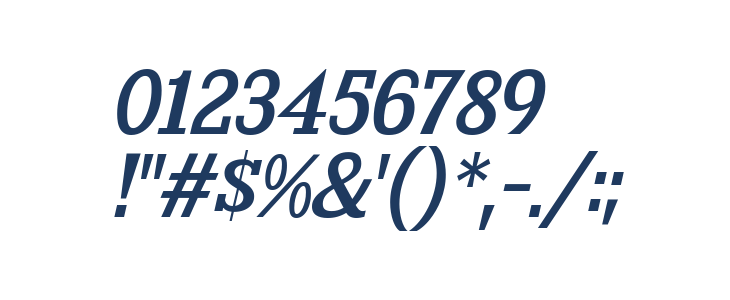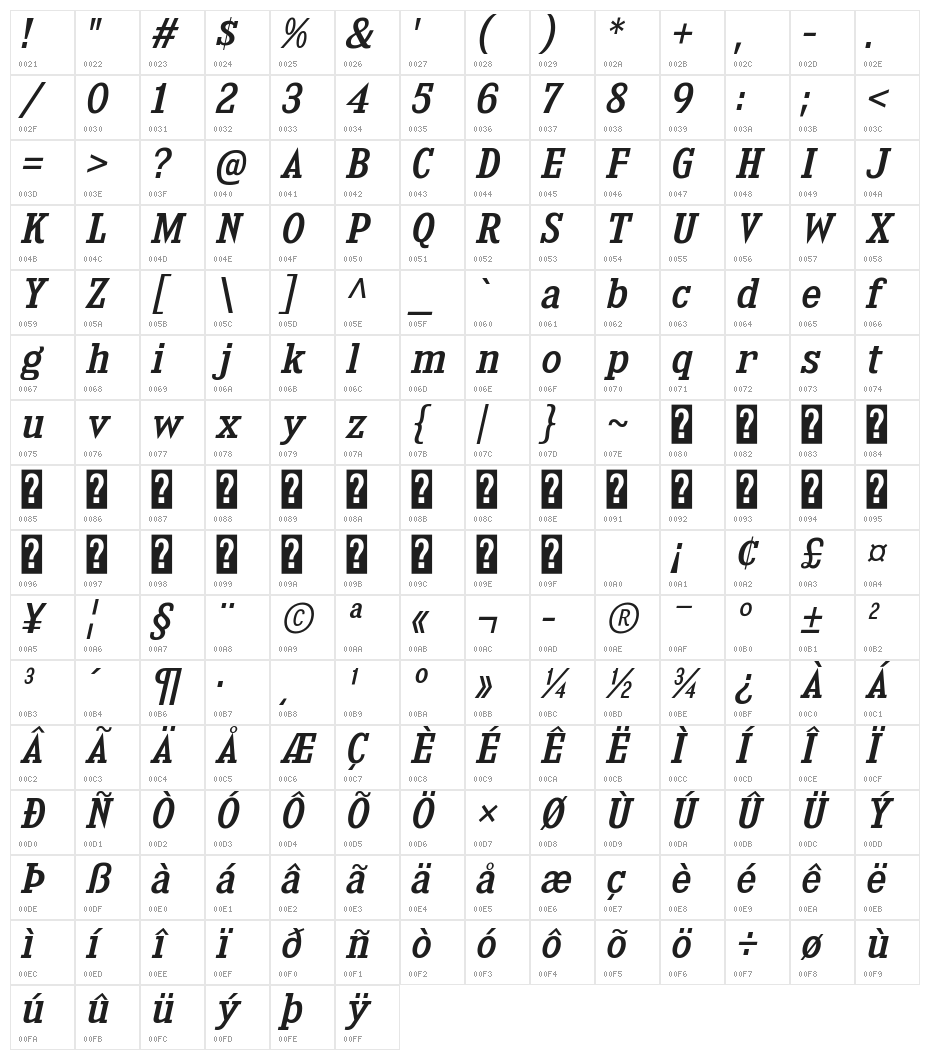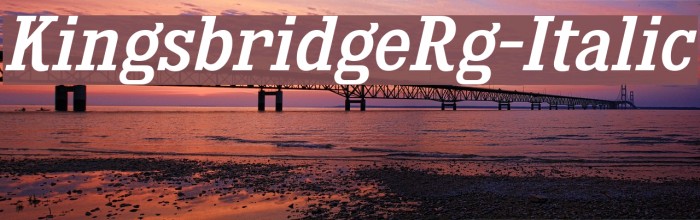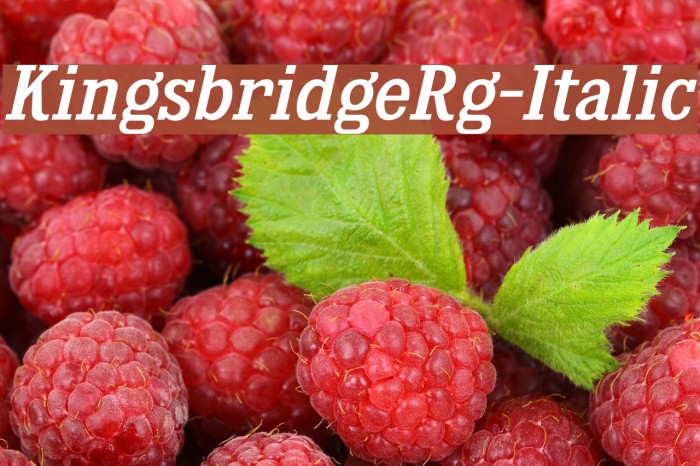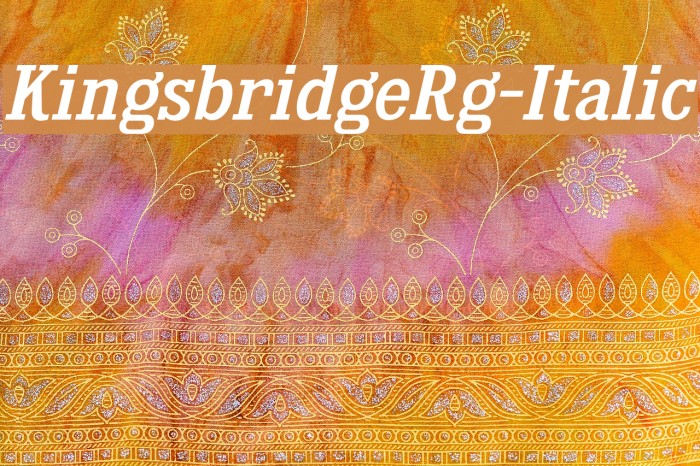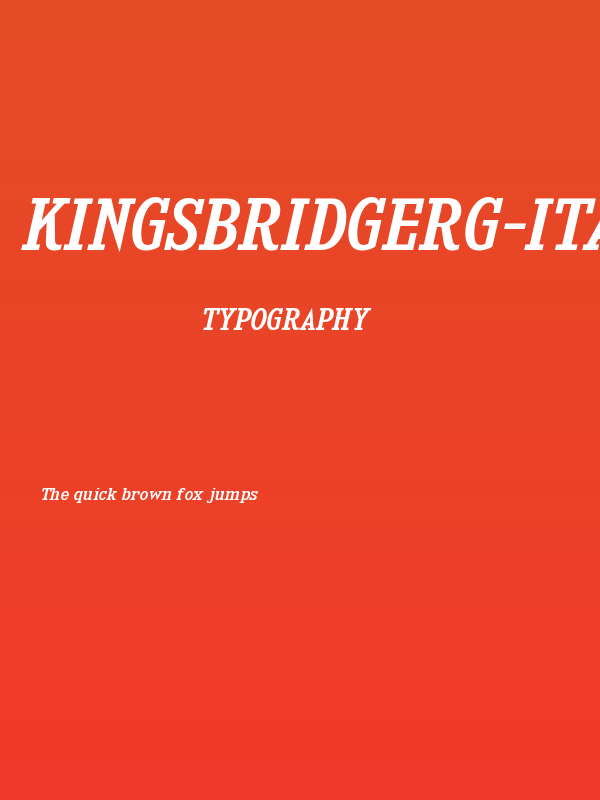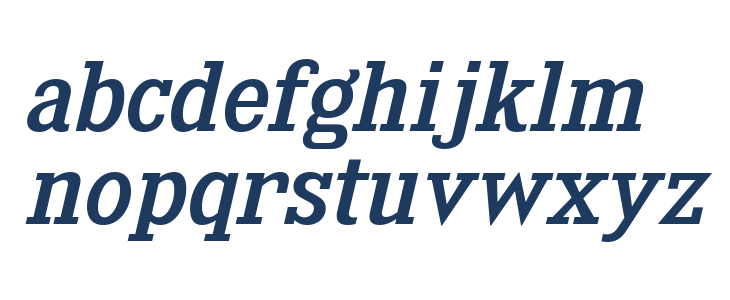
KingsbridgeRg-Italic Font
KingsbridgeRg-Italic Description
This font features a classic serif style with a distinct italic slant, giving it an elegant and sophisticated appearance. The serifs are pronounced, adding a touch of formality and tradition. The characters have a moderate contrast between thick and thin strokes, enhancing readability while maintaining a stylish look. The font's overall design is balanced, with a slight forward tilt that suggests movement and dynamism. It includes a full set of uppercase and lowercase letters, numerals, and a variety of punctuation marks and special characters, making it versatile for various design needs.
Overall StyleClassic
Proposed ProjectsIdeal for editorial design, book covers, formal invitations, and branding projects that require a touch of elegance.